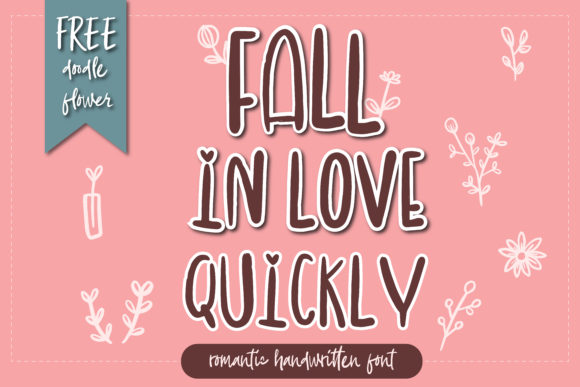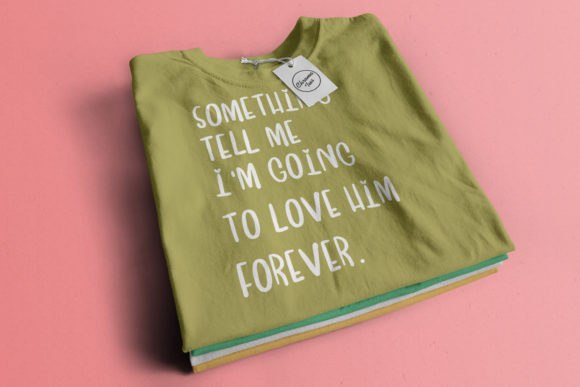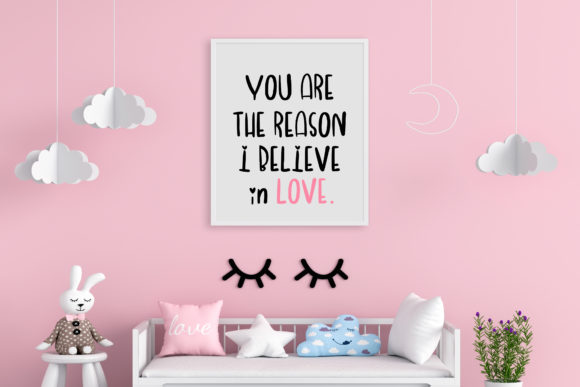
About Fall in Love Quickly Font
Fall in Love Quickly is a cute and casual handwritten font with an incredibly friendly feel. Whether you’re looking for fonts for Instagram or calligraphy scripts for DIY projects, this font will turn any creative idea into a true piece of art!